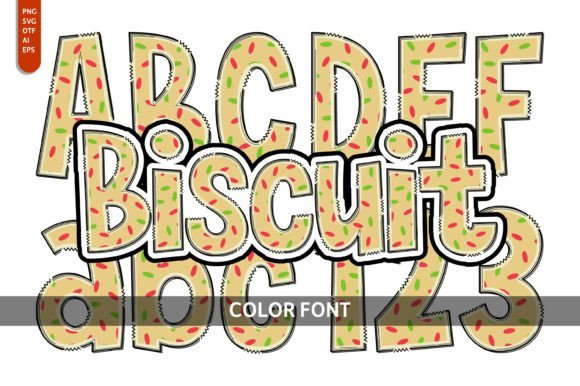
The Sweet Taste of Creativity: Biscuit Font
Remember the thrill of creating something from scratch as a child? The excitement of combining colors, shapes, and words to bring an idea to life? For designers, that spark of creativity is what drives us to push boundaries and explore new possibilities. And when it comes to adding a playful touch to our designs, one font stands out from the rest: the Biscuit Font.
With its whimsical feel and easy-to-read style, the Biscuit Font is the perfect choice for designers looking to add a dash of fun to their projects. Whether it’s a children’s book, poster, or invitation, this font is sure to bring a smile to the viewer’s face. Its versatility makes it a valuable addition to any designer’s toolkit, and its unique charm sets it apart from more traditional fonts.
Biscuit Font Key Features
- Font Family: Biscuit Font is a unique, hand-drawn font family that includes 6 styles: Regular, Italic, Bold, Bold Italic, Outline, and Fill.
- Character Set: The font includes a wide range of characters, including uppercase and lowercase letters, numbers, punctuation marks, and special characters.
- Unique Characteristics: The font’s hand-drawn design and organic feel make it perfect for creating a warm, inviting, and whimsical atmosphere in designs.
Biscuit Font Review
As a designer, I’m always on the lookout for unique and creative fonts to enhance my designs. The Biscuit Font is one such font that caught my attention, and I’m excited to share my honest review with you.
- ✨ Unique design: The Biscuit Font has a quirky, hand-drawn feel that’s perfect for adding a touch of personality to your designs.
- ✨ Versatility: This font is suitable for a wide range of projects, from logos and branding to editorial and creative content.
- ✨ Customization options: The font offers various weights and styles, allowing you to customize it to fit your design needs.
- ⚠️ Limited legibility: In some cases, the font’s unique design can make it difficult to read, especially in smaller text sizes.
- ⚠️ Limited language support: The font may not be optimized for certain languages, which can limit its use in international projects.
The Biscuit Font is a great addition to any designer’s toolkit. Its unique design and versatility make it perfect for adding a touch of personality to your designs. However, it’s essential to use it judiciously and consider the limitations, especially when it comes to legibility and language support.
The Biscuit Font is ideal for:
– Creating a playful, rustic feel in branding and marketing materials.
– Adding a whimsical touch to wedding invitations and party decorations.
– Designing a vintage-inspired aesthetic in packaging and product labels.